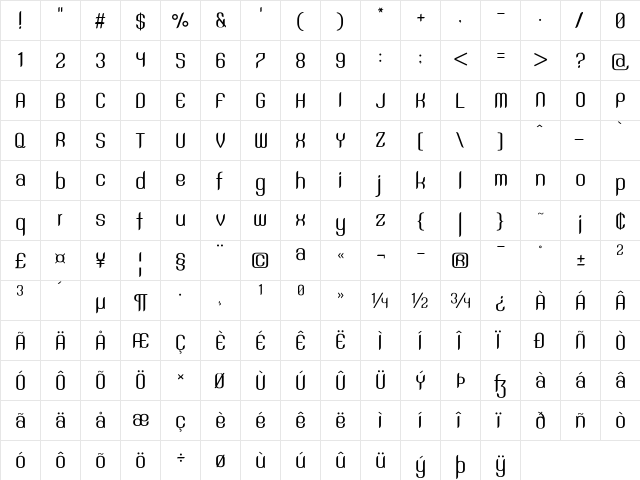
SNT Anouvong Regular
| Foundry | Sengkeo Vangxiengvue |
| Designer | Sengkeo Vangxiengvue |
Design Context for SNT Anouvong Typeface
SNT Anouvong offers clean, dependable letterforms without strong stylistic allegiance, making it a practical choice for designers who need flexibility.
Pro Tip: Pair SNT Anouvong with a font of contrasting weight or personality to build a more expressive typographic hierarchy.